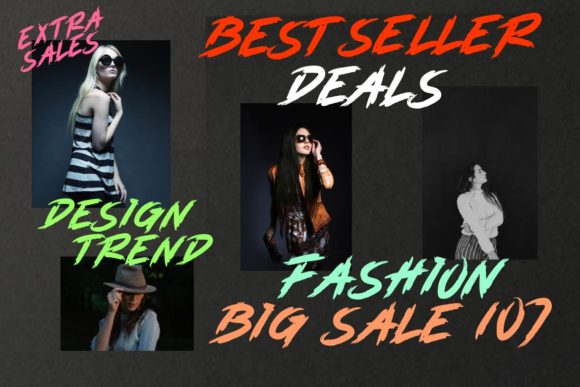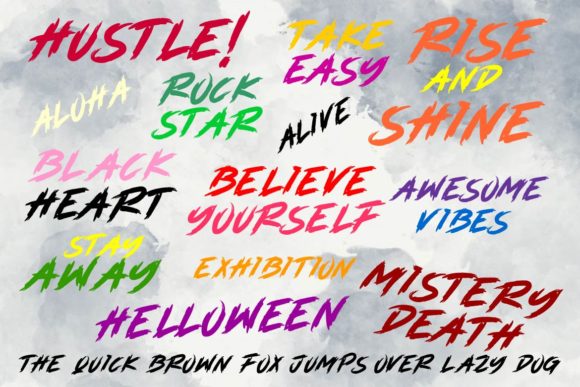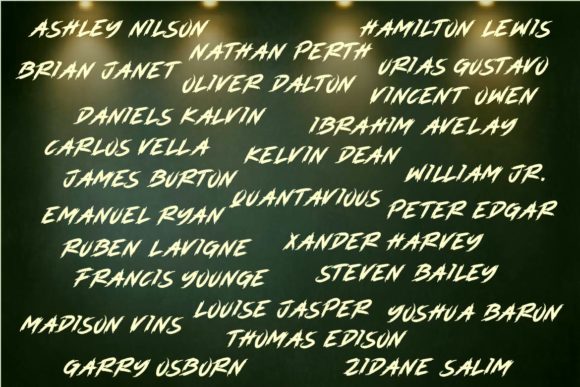
Introduction to Alterbreak Font
Alterbreak is a casual, fun handwritten font, created by using a brush pen.
Clean and a little bit quirky, this font is the perfect fit for all of your logos, branding, social media, and crafty DIY projects .